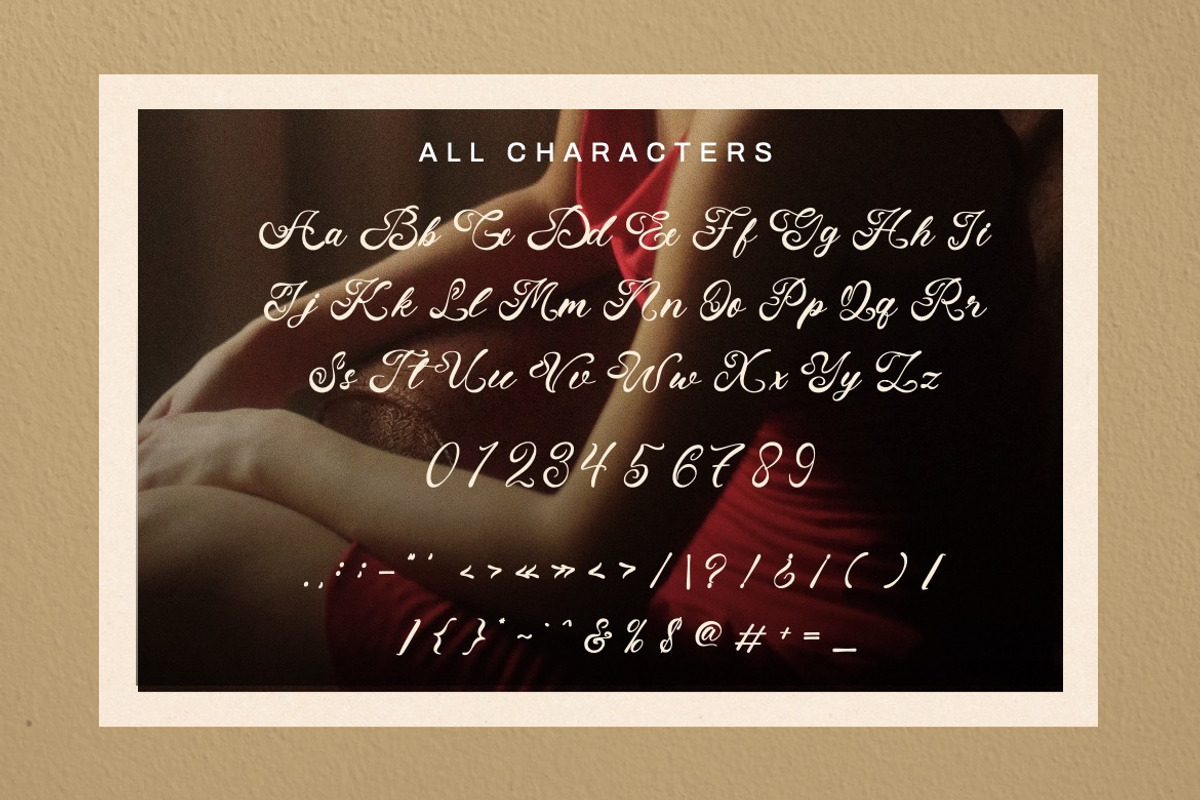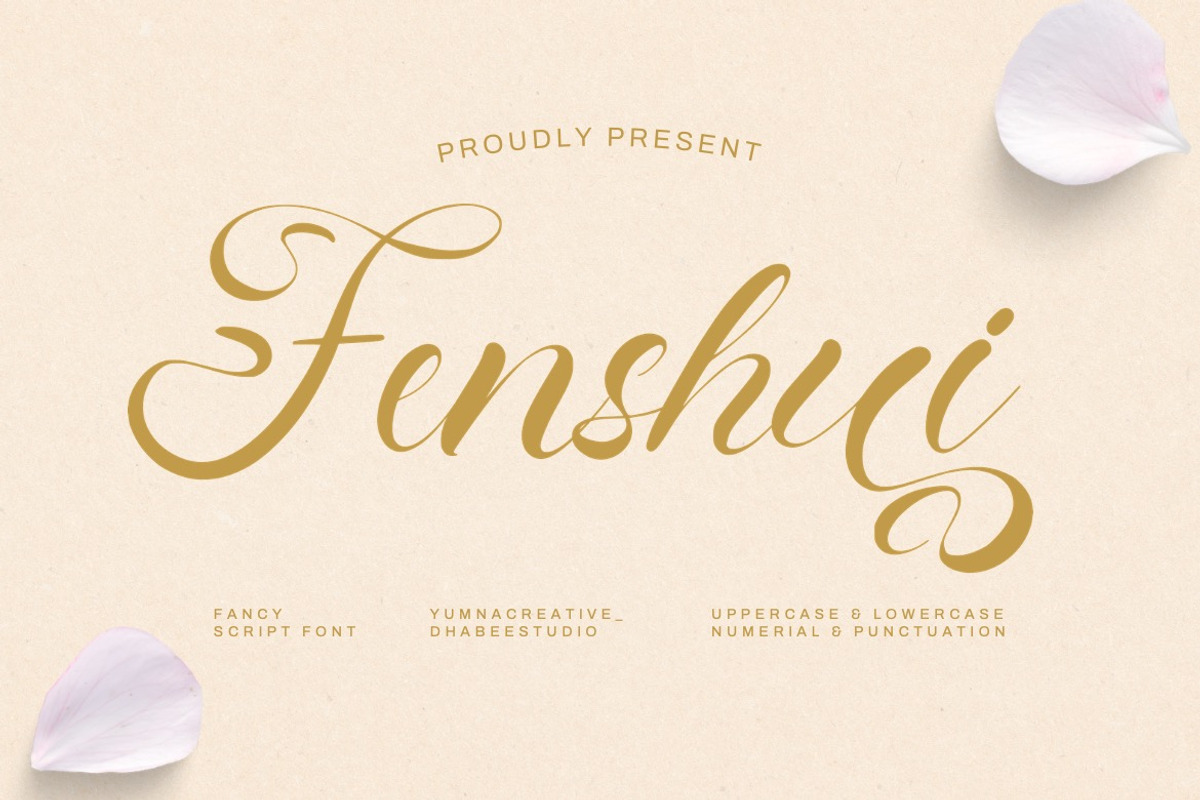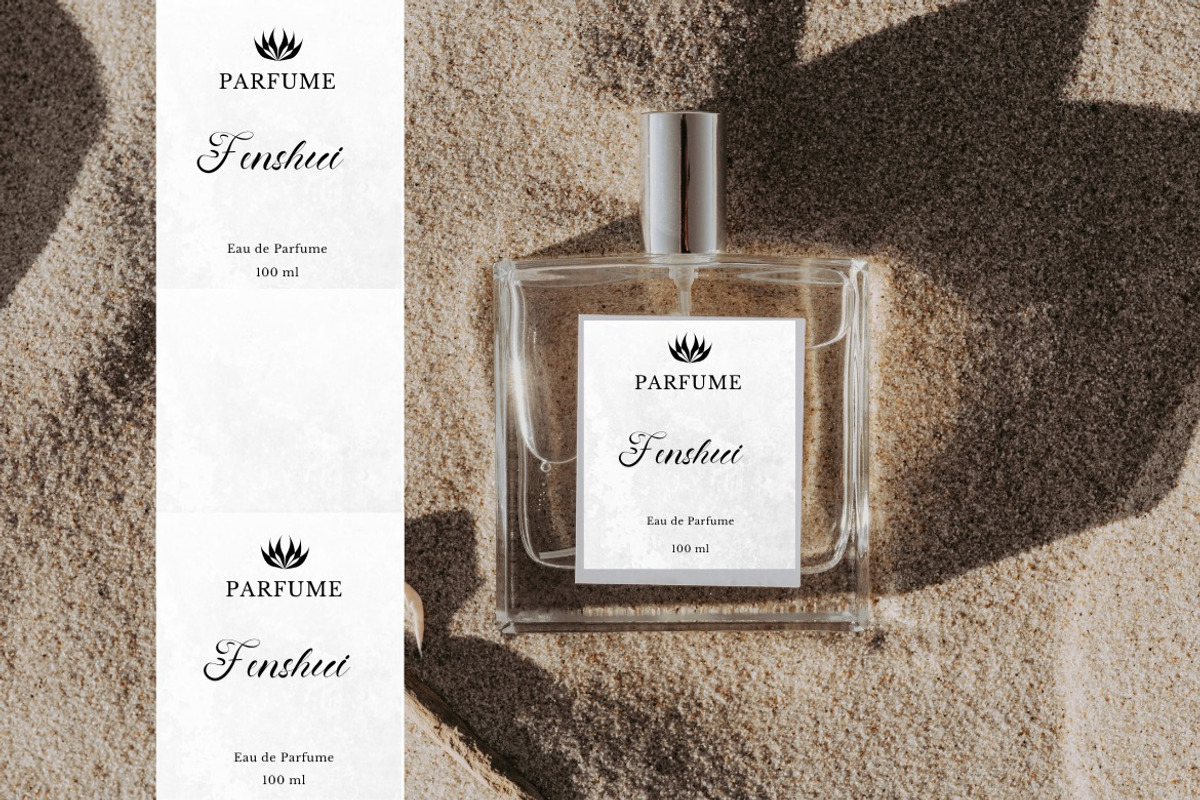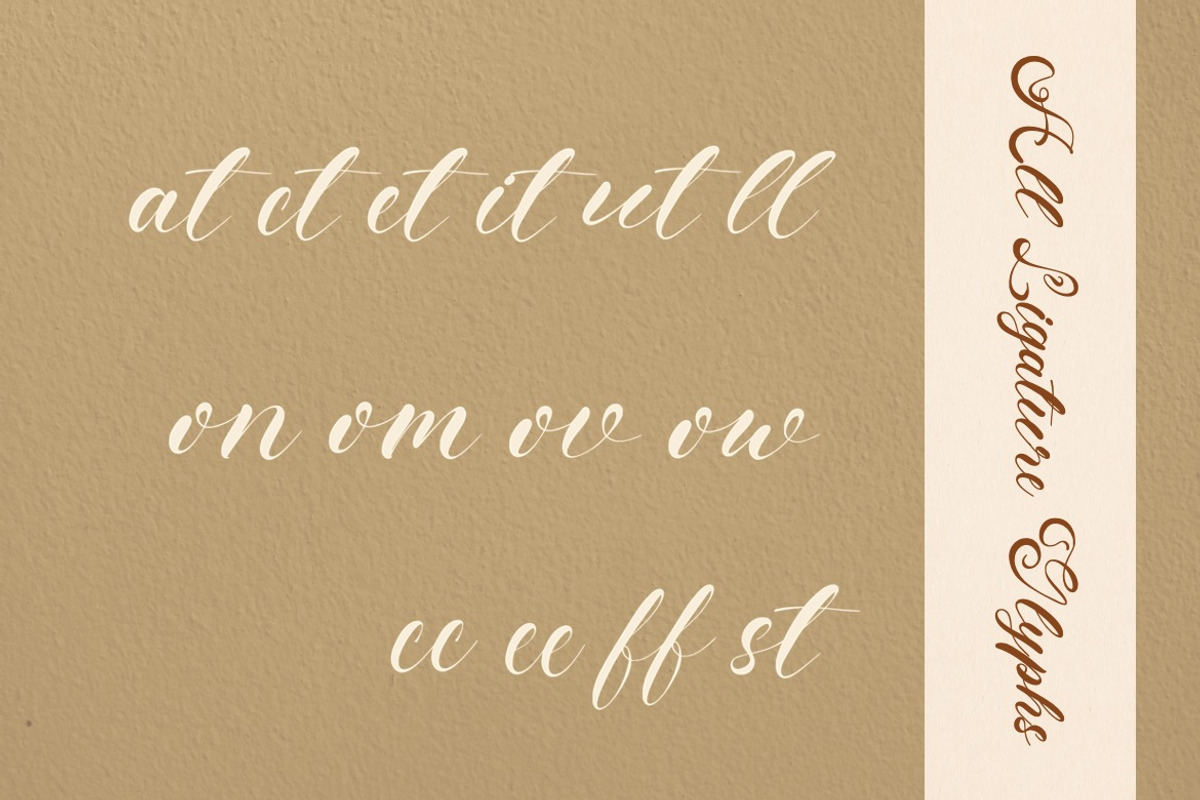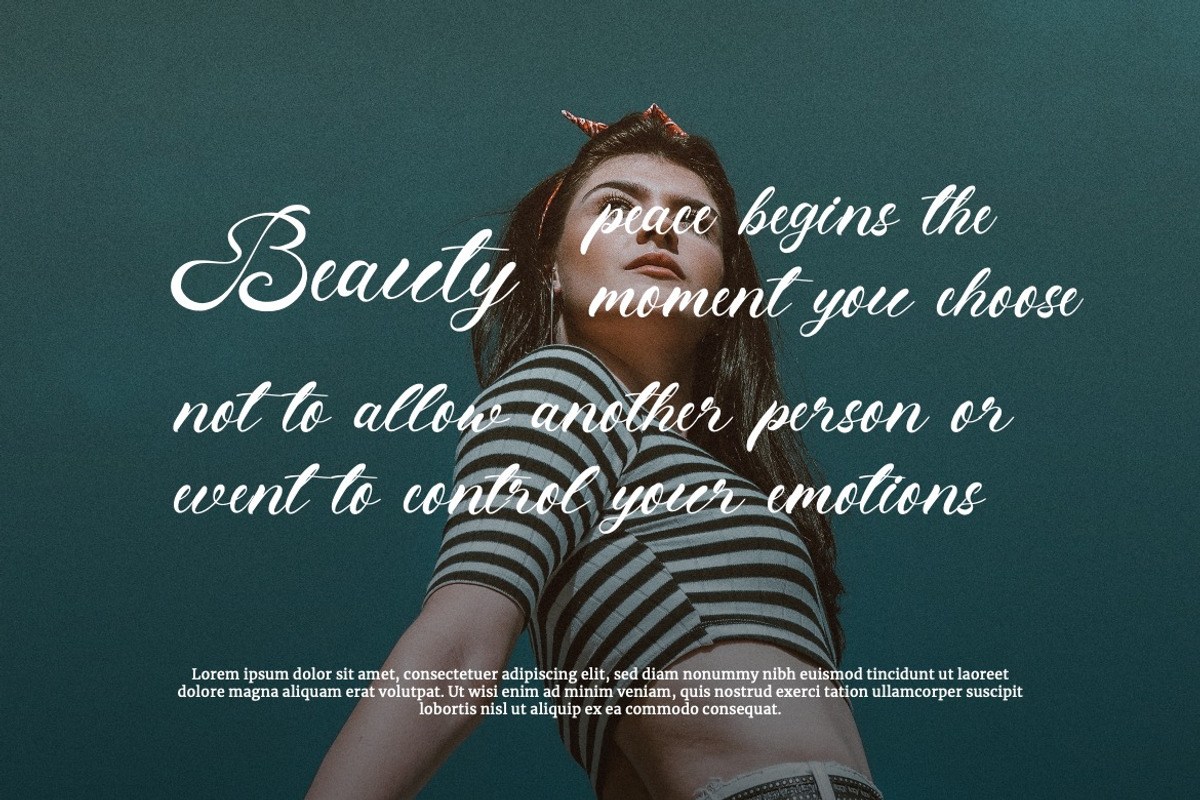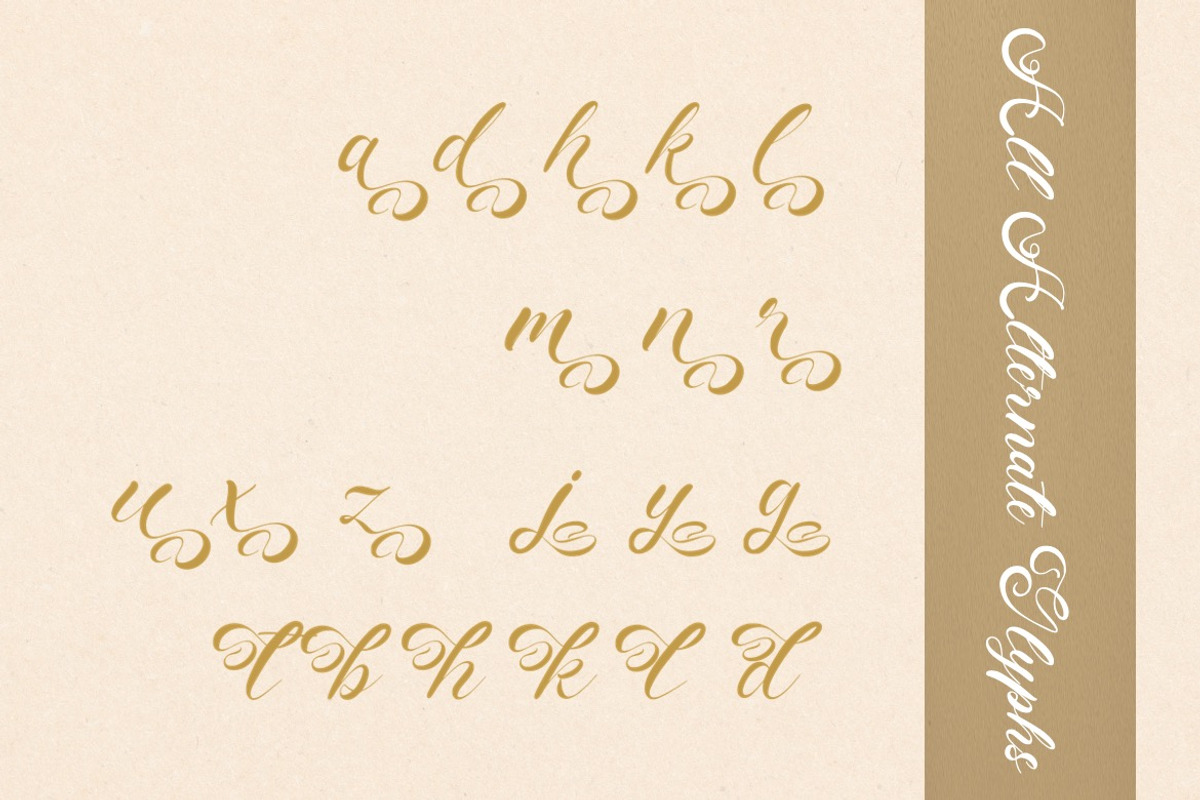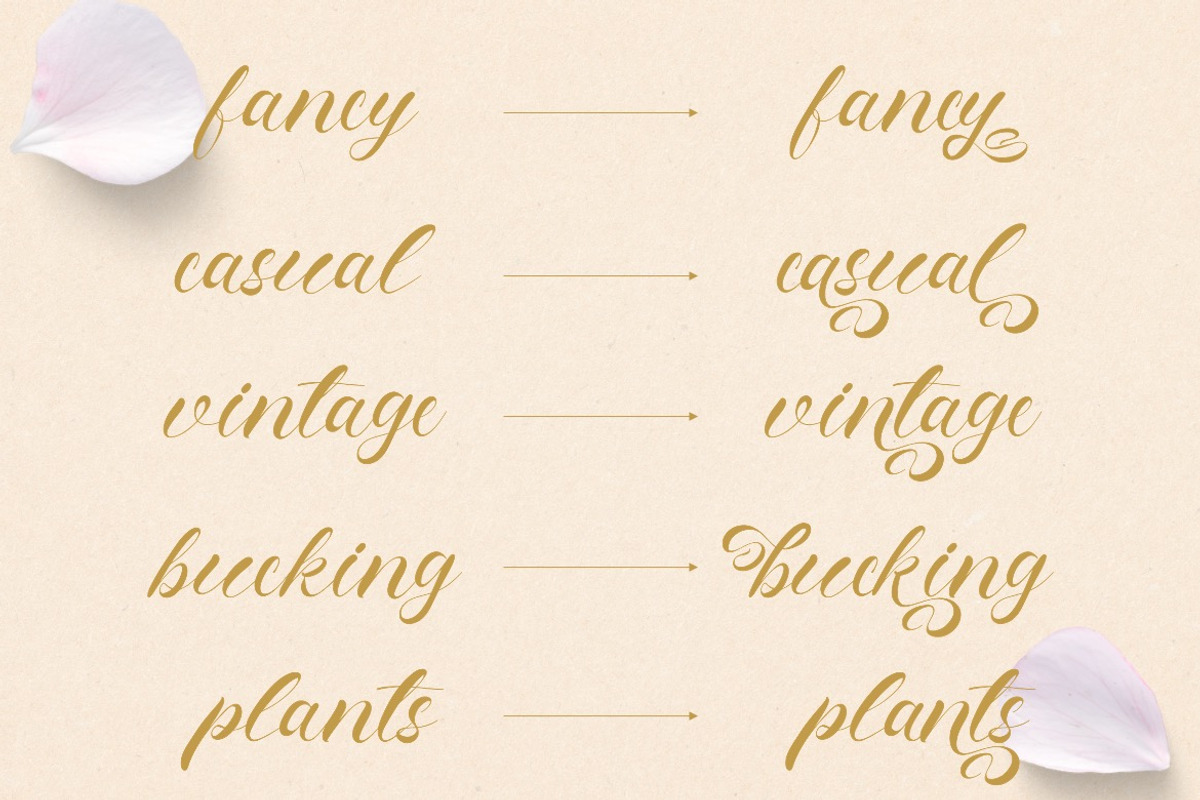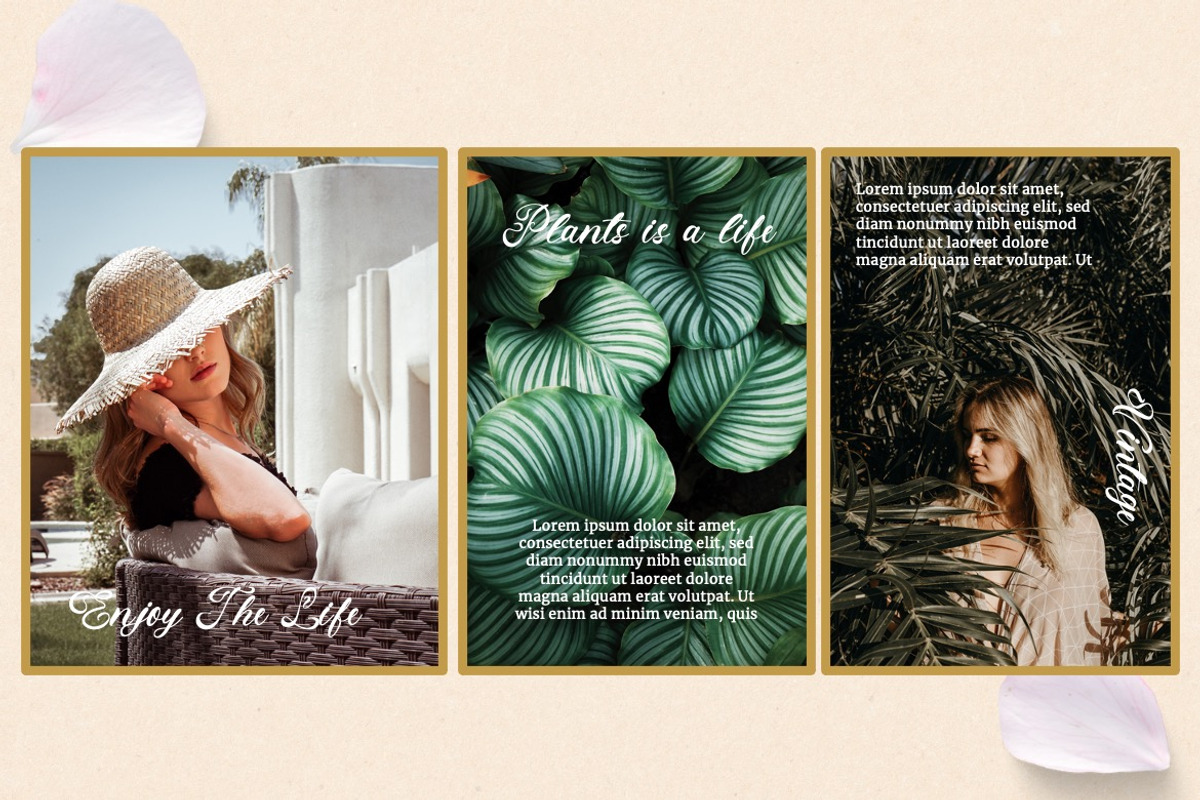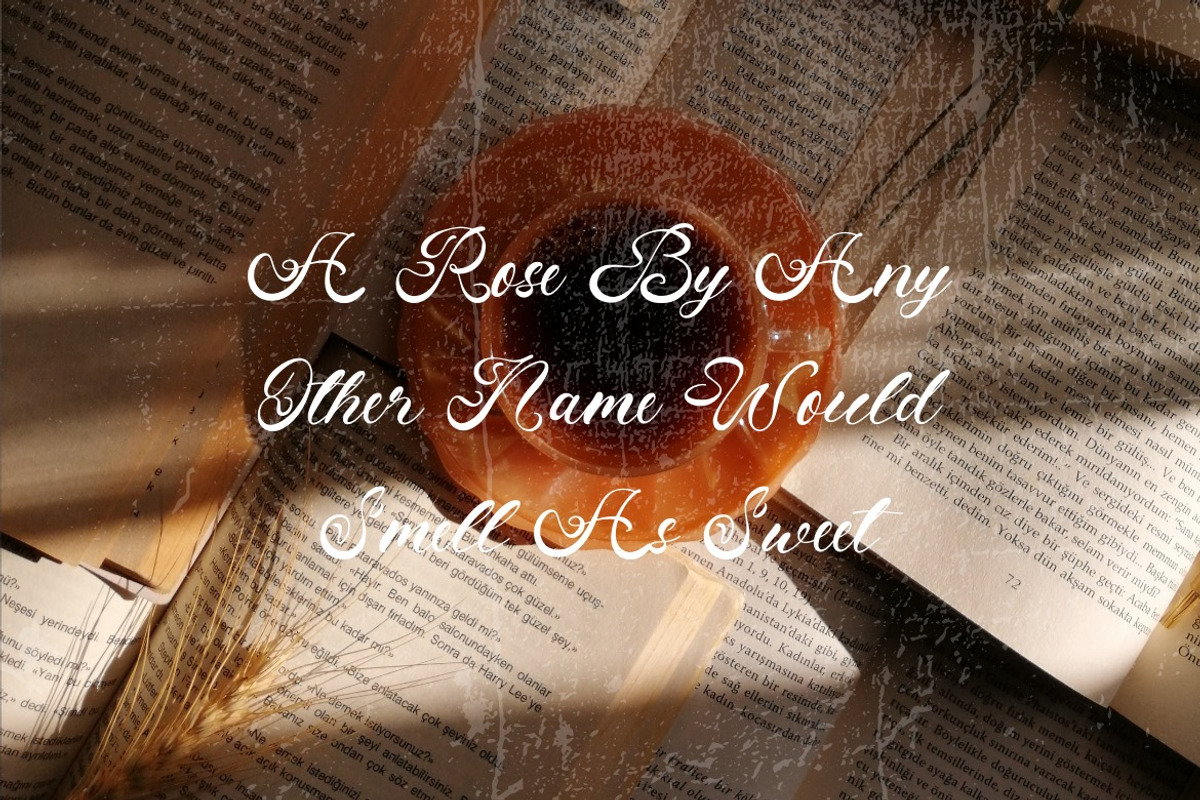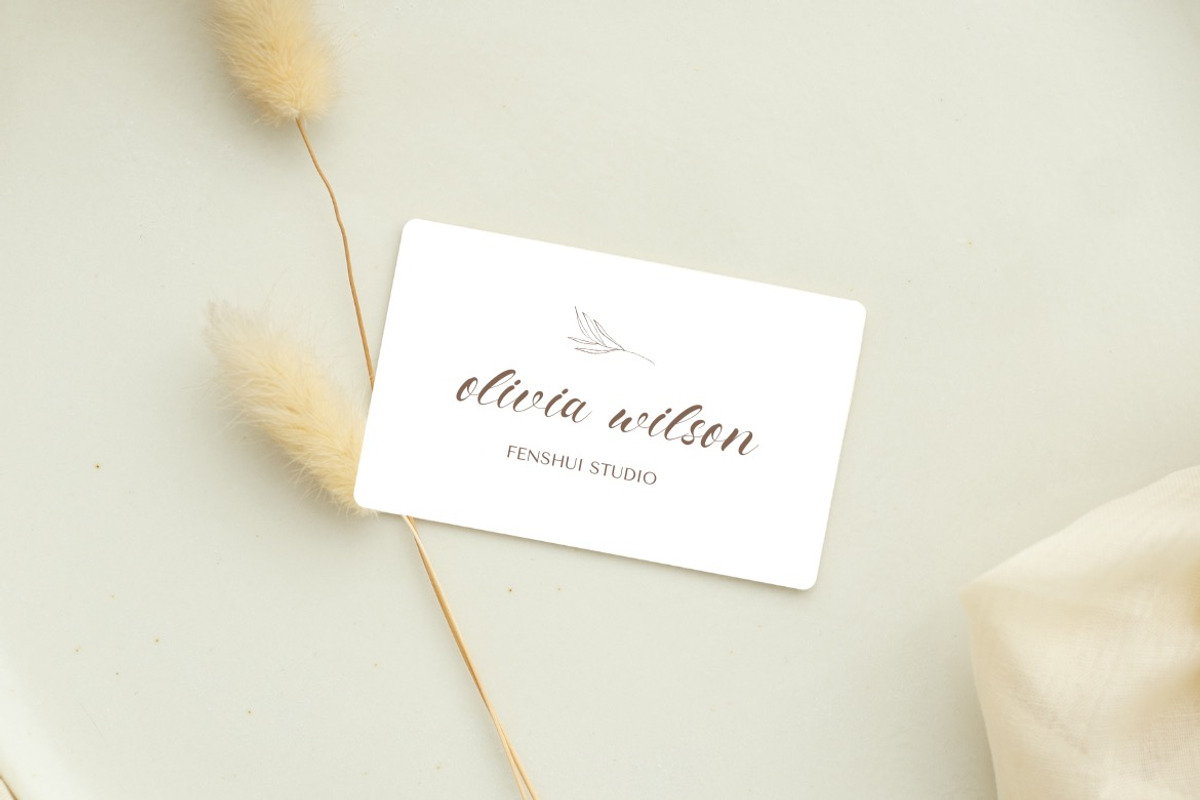
Fenshui – Fancy Script Font
Introducing Fenshui – Fancy Script Font
This Font is a delicate, elegant and flowing handwritten font. It has beautiful and well as a unique blend of ligatures a letter, so that the authors compose it with a and little swirly embedding, so that a modern font is formed and ready to make a statement by adding elegant and unique flair to your next design project. Add it to your most creative ideas and notice how it makes them come alive!
• Alternate & Ligature